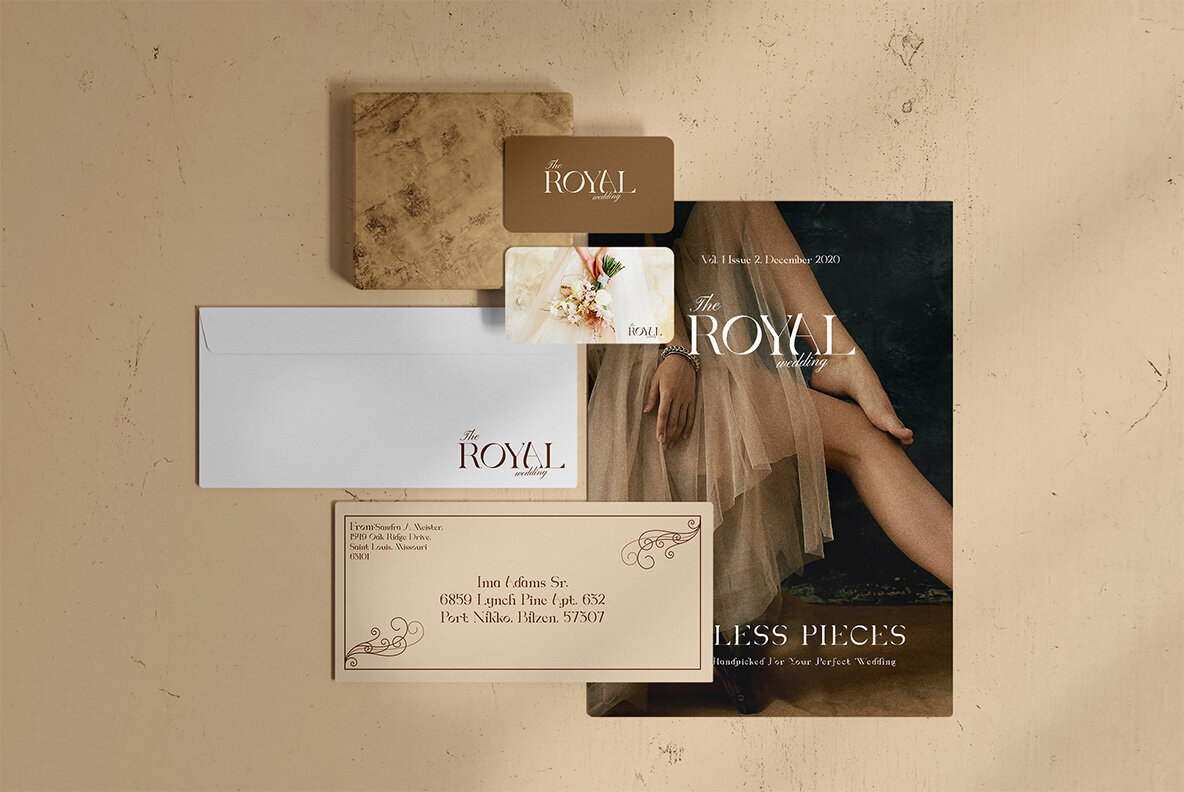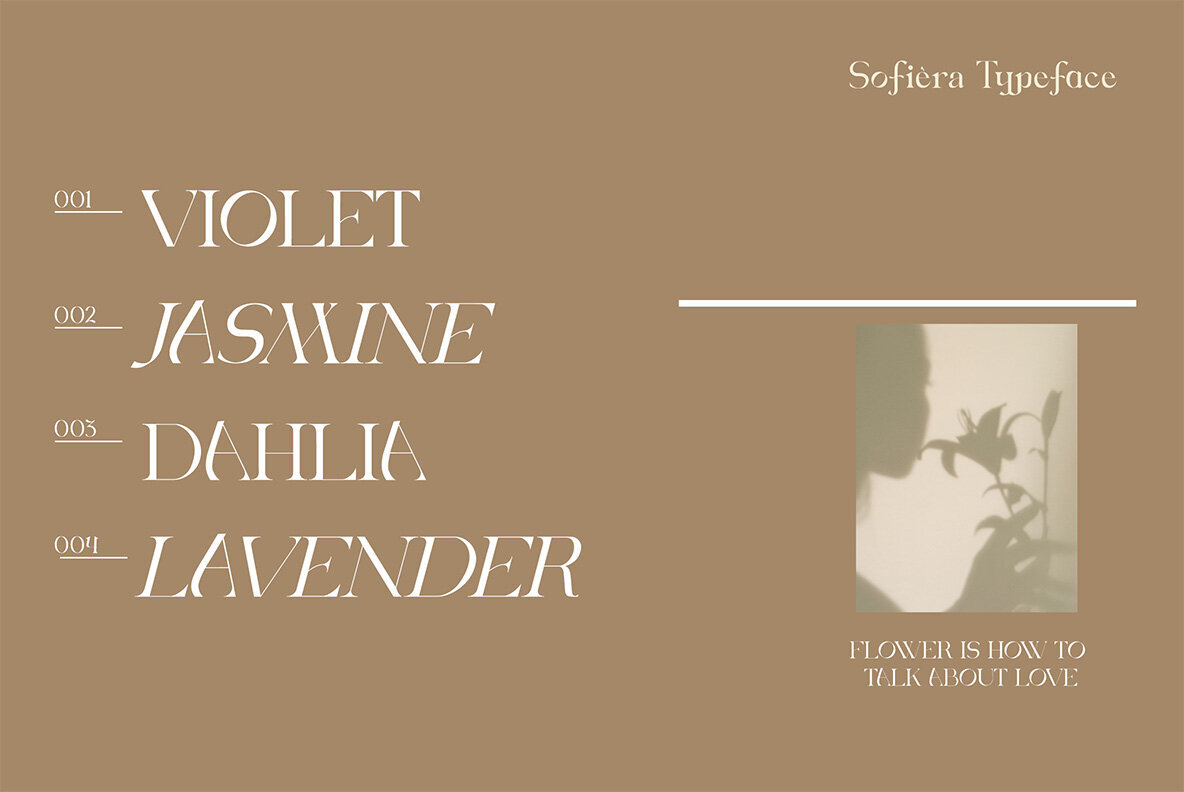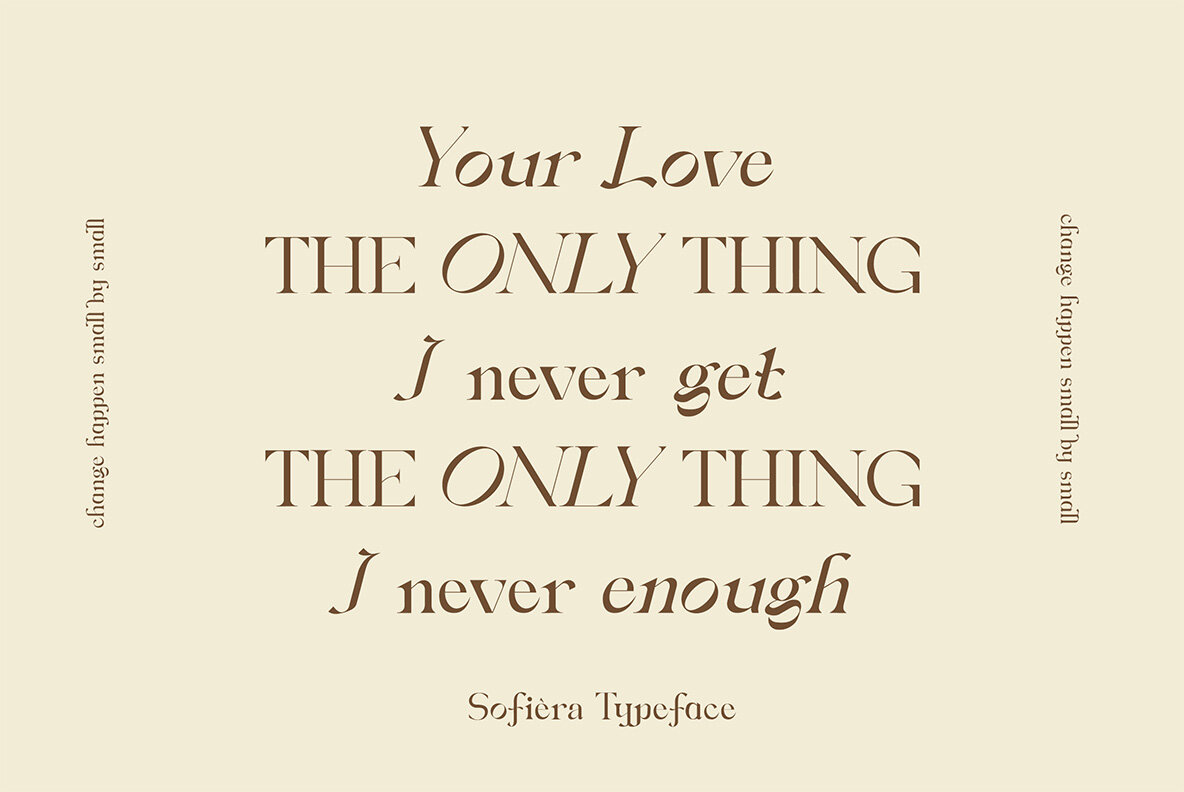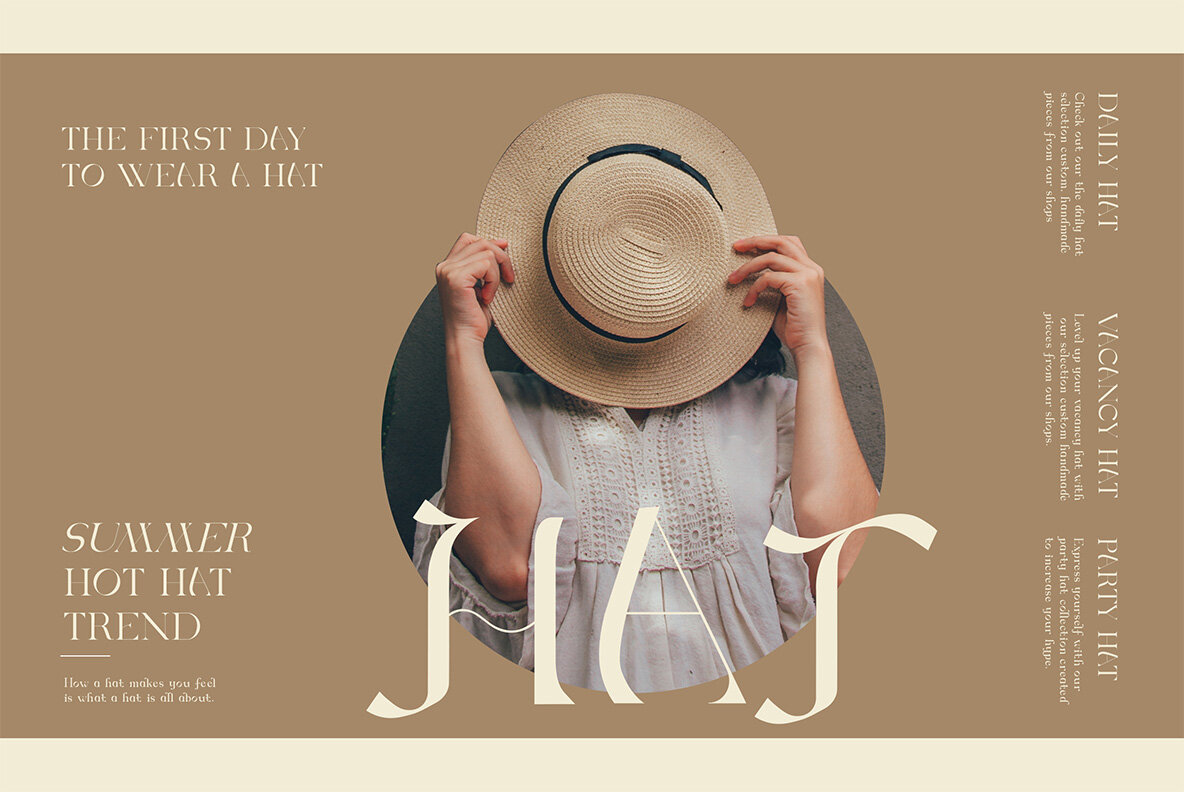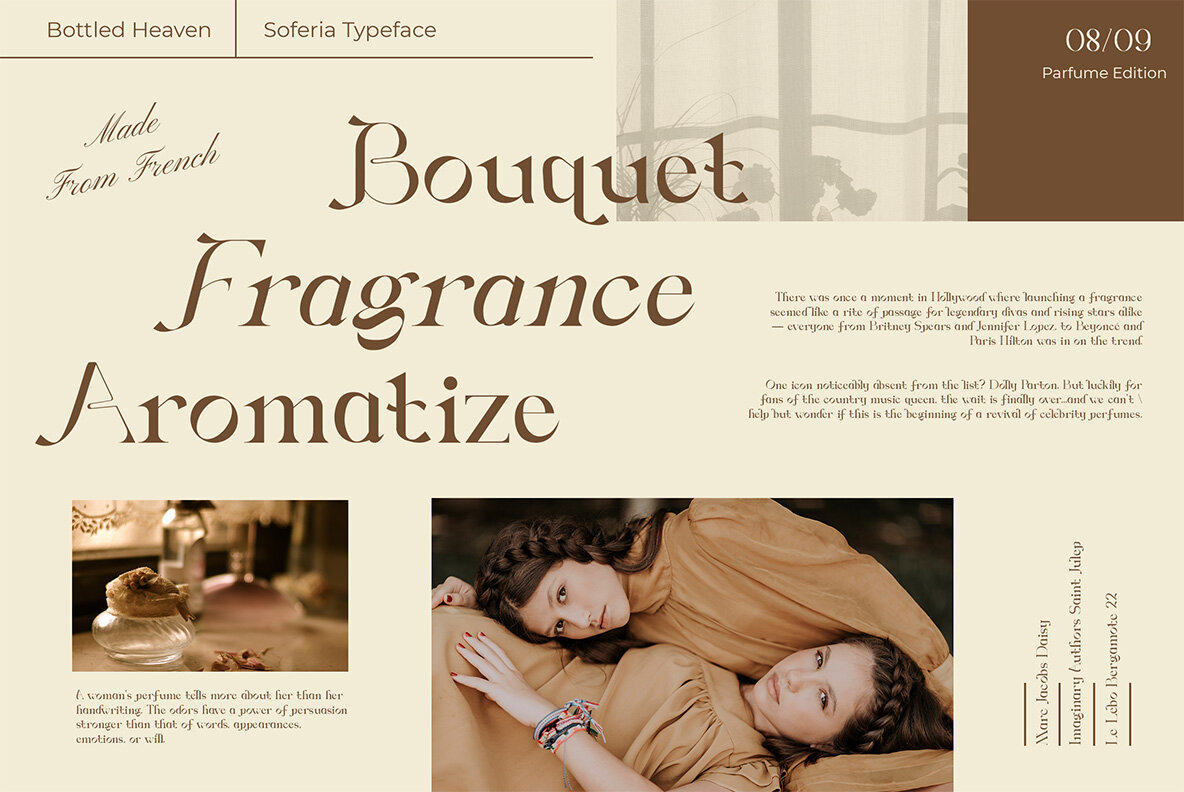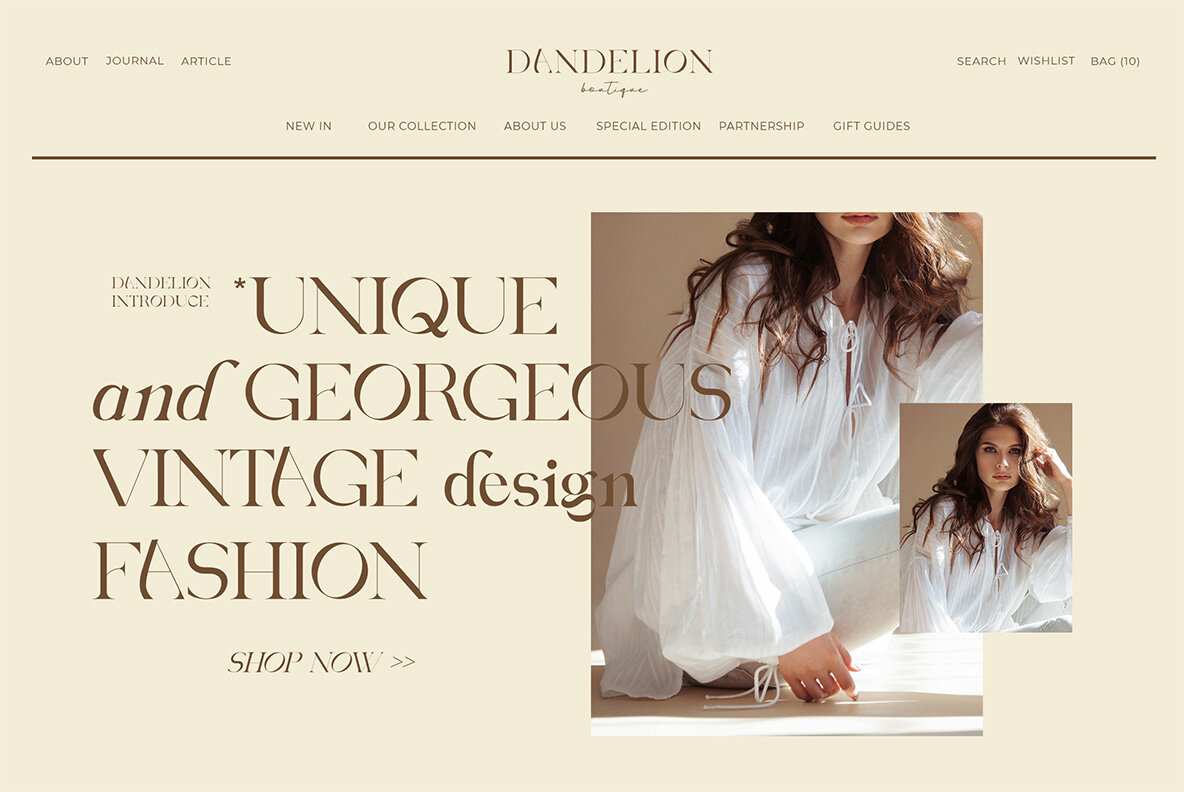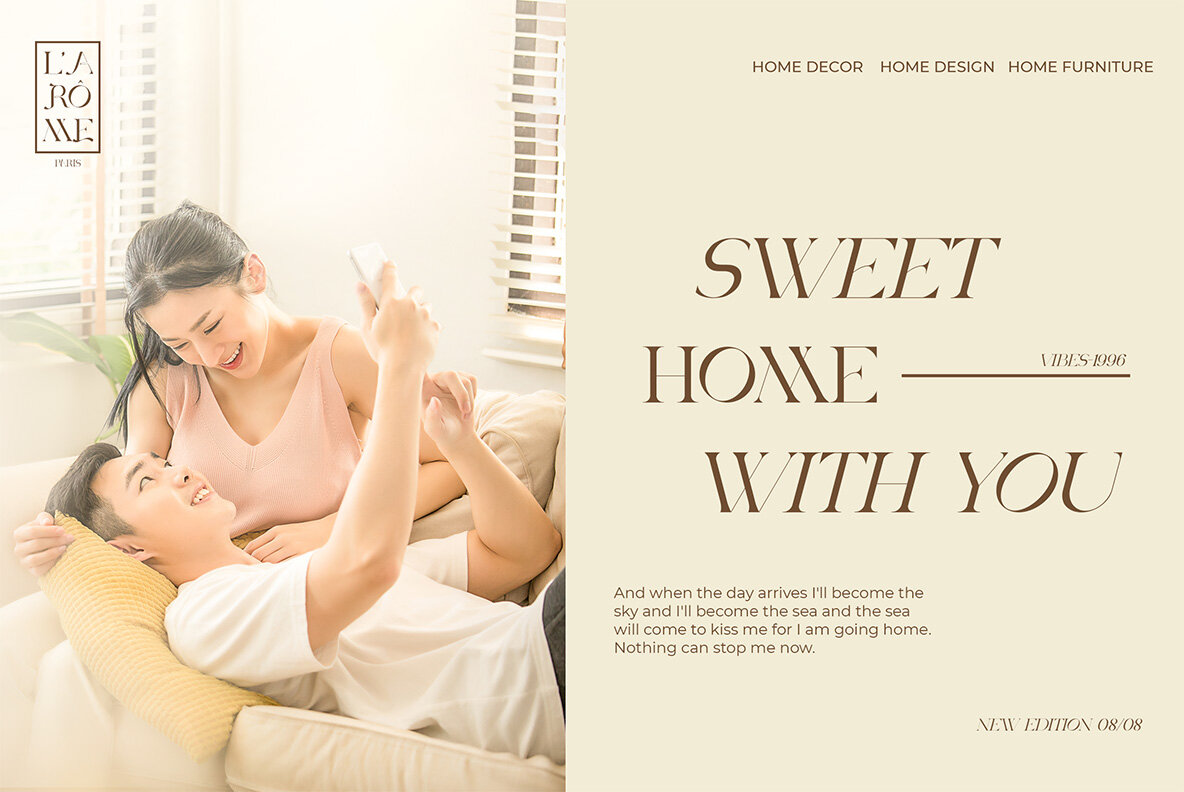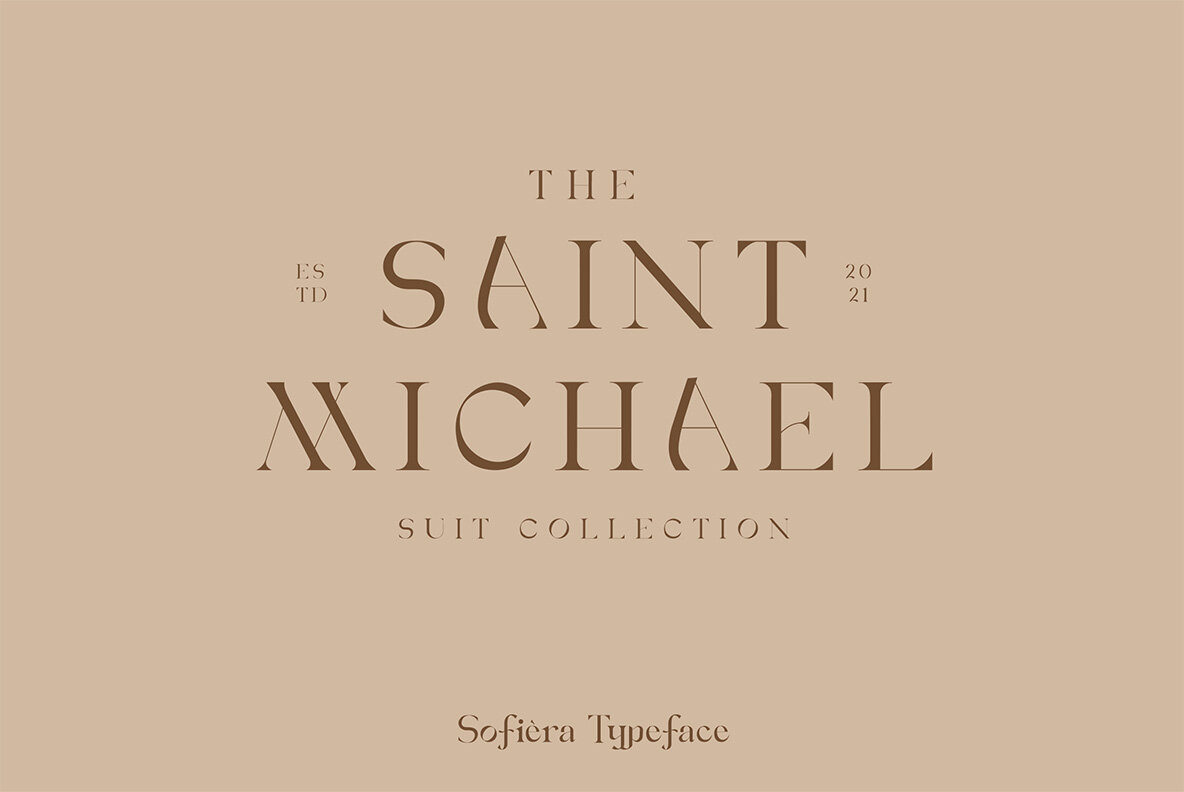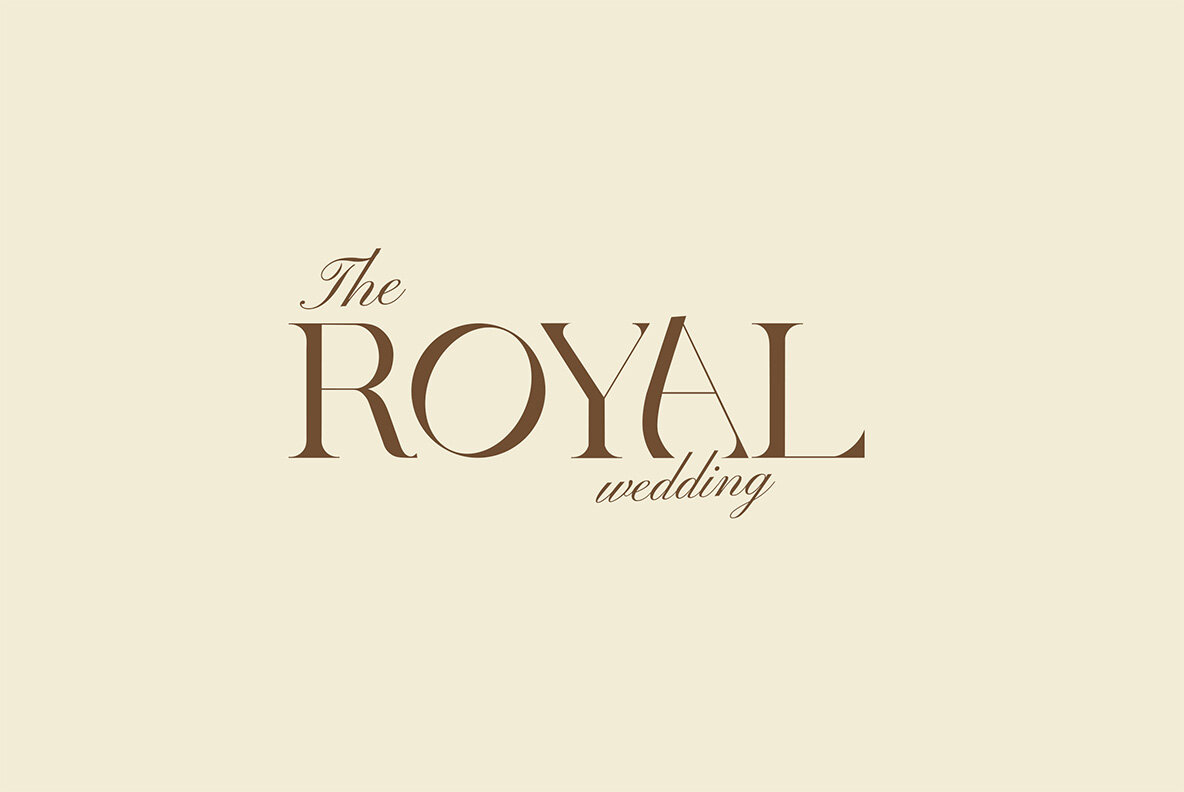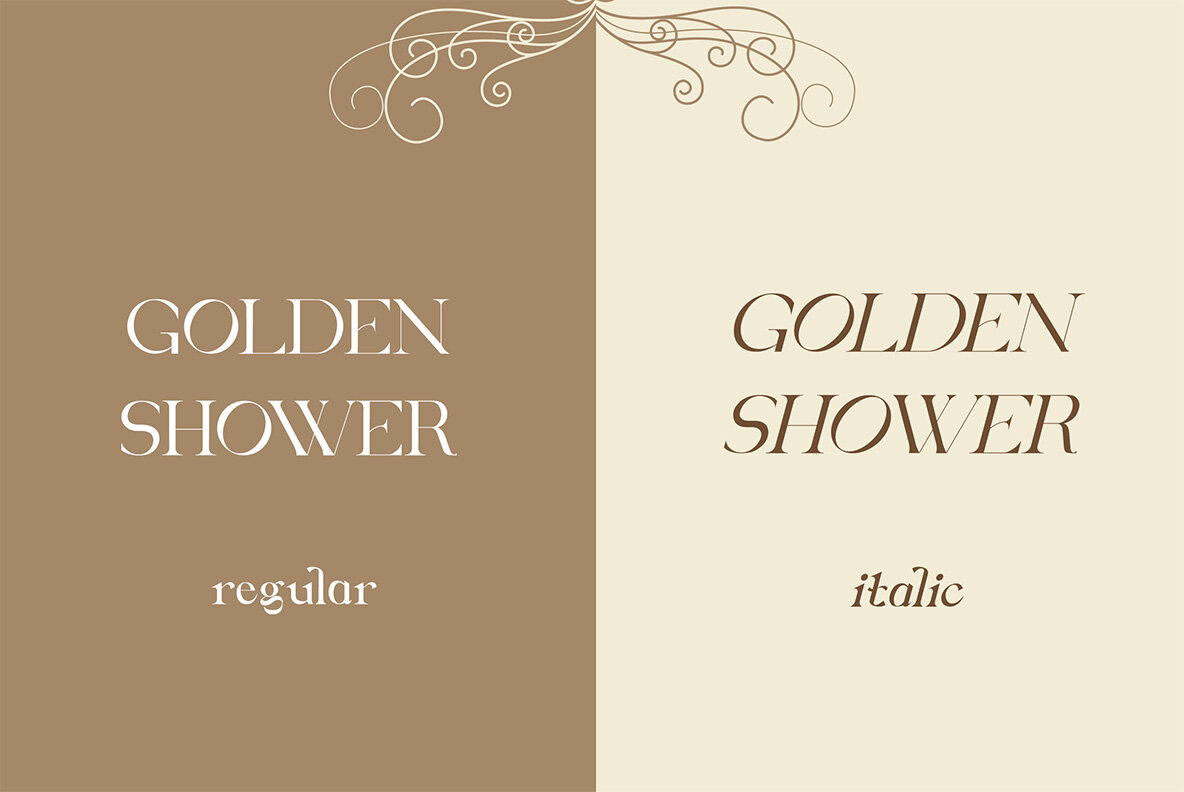
Sofiera Luxury Font
Sofiera Luxury stands as a testament to refined design, merging vintage aesthetics with modern elegance. This luxury font, crafted by Kurt Harahap, features smooth curves and a wealth of alternative glyphs that breathe uniqueness into your projects. With built-in ornamentation and multilingual support, Sofiera adapts seamlessly to both large and small format designs, making it an ideal choice for diverse branding and design tasks. Whether you're working on logo design, clothing branding, product packaging, or magazine headers, Sofiera adds a touch of sophistication. Its versatility allows it to serve as an elegant text overlay, enriching your compositions with style and grace. Enhancing your design with Sofiera's alternate characters is straightforward:Sofiera Luxury: Elegance in Every Curve